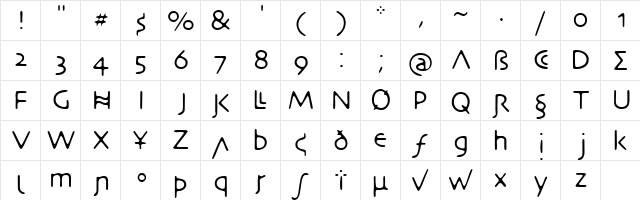
DesertCrypt Regular Font Preview
DesertCrypt Regular
DesertCrypt Regular Font Details
Design Context for DesertCrypt Typeface
DesertCrypt is a composed and adaptable typeface that performs quietly and consistently across a wide range of design contexts.